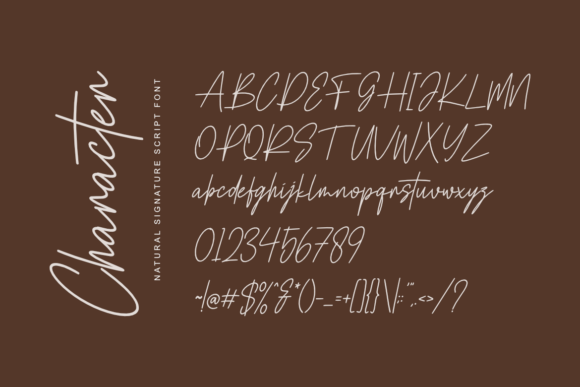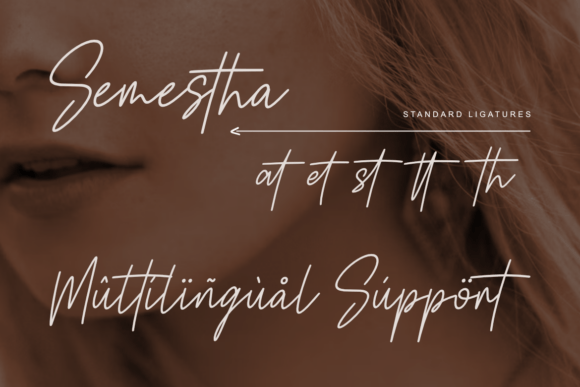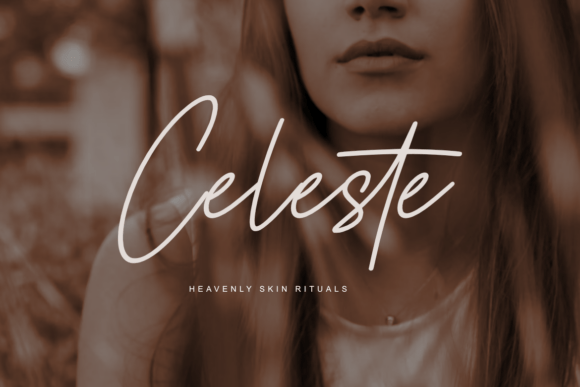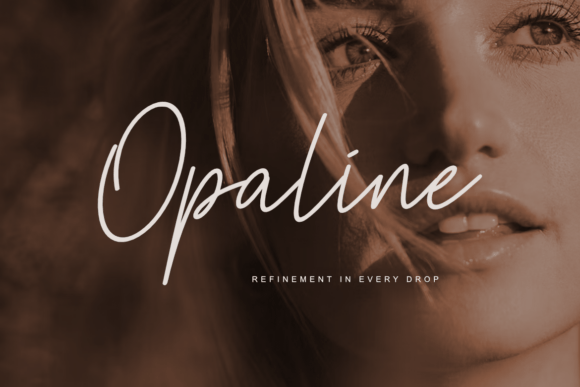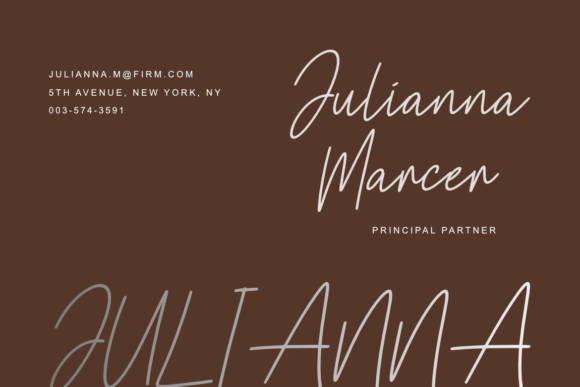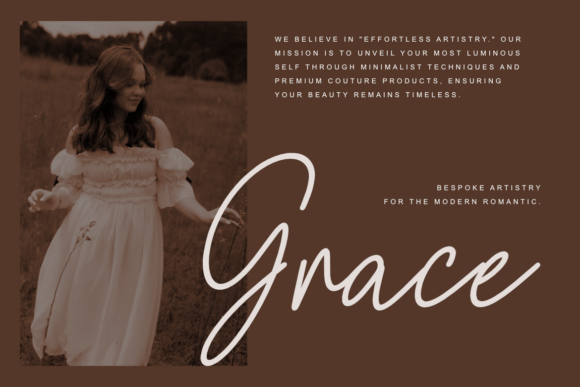
Introduction to Semestha Font
Imagine you’re working on a high-end branding project, and you need the perfect signature script font to make your design truly stand out. You search through your design resources, and one font catches your eye – Semestha Font. Its elegant and flowing natural signature script design is precisely what you need to give your visuals a striking, professional, and deeply personalized look.
As a designer, you know the value of having high-quality design resources at your fingertips. The Semestha Font is designed for high-impact and precise typography, making it perfect for personal signatures, professional luxury branding, fashion logos, and high-end social media layouts. With its refined script structure and clean, handwritten lines, this font is sure to elevate your creative project to the next level.
Key Features of Semestha Font
- High-quality design resource for creative projects, offering a unique and stylish aesthetic.
- Designed with a focus on versatility, making it suitable for a wide range of creative projects, from digital art to print materials.
Honest Review: Semestha Font
I recently came across the Semestha Font, and I must say it’s a great addition to any designer’s toolkit. As a designer, I’m always on the lookout for high-quality design resources that can elevate my creative project.
- ✨ Unique and elegant design
Tips for Getting the Most Out of Semestha Font
For optimal results, use the Semestha Font on a transparent background to create a clean and modern design. You can also experiment with different font sizes and styles to add depth and visual interest to your project.
The Semestha Font is ideal for creative projects that require a high-quality, elegant font. Use it for logo designs, business cards, brochures, and other marketing materials that need a professional touch.
Is the Semestha Font suitable for high-resolution printing?
Yes, the Semestha Font is designed to be high-quality and suitable for high-resolution printing. It features clear and crisp lines, ensuring that the font looks great even at large sizes and high resolutions. This makes it an excellent choice for designers working on print projects, such as business cards, brochures, or posters.